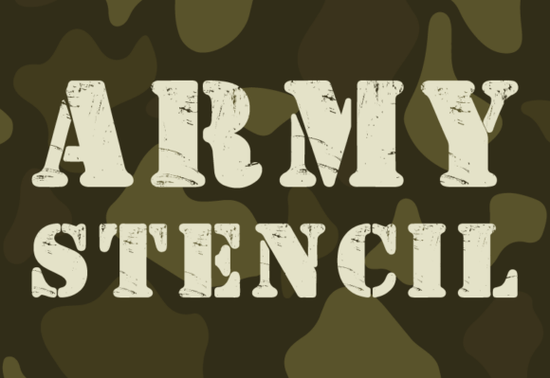
Designers, crafters, and small business owners looking for a unique visual identity might find the Army Stencil Font to be an excellent addition to their toolkit. This sans-serif typeface brings a bold and unconventional aesthetic that stands out in any project. Whether you're working on a logo, t-shirt design, or print-on-demand product, the Army Stencil Font offers a fresh approach to typography with its military-inspired vibe.
The font’s design is characterized by its grunge, weathered look, and strong, unapologetic lines. It doesn’t shy away from its war-inspired roots but adds a modern twist that makes it versatile for a range of creative applications. The combination of boldness and a slightly rough texture gives it a distinctive edge that can add depth to any design. If you’re searching for something that feels both powerful and artistic, this font could be a great fit.
For those interested in similar styles, you might also explore Presque Elegante Font, which offers a more refined yet still unique alternative. However, if you're drawn to the raw energy of the Army Stencil Font, you’ll find it particularly useful for projects that require a strong visual statement.
What Makes Army Stencil Font Stand Out?
The Army Stencil Font isn’t just another generic font it’s designed with intention. Its military influence is clear, but it avoids being too literal or cliché. Instead, it balances that theme with a sense of modernity and creativity. This makes it suitable for a wide range of uses, from branding to editorial design.
One of the key features of this font is its versatility. It works well in both digital and print formats, making it a reliable choice for designers who need a consistent look across different mediums. Its bold nature ensures it remains legible even at smaller sizes, which is essential for anything from packaging to signage.
If you're looking for a font that can add a bit of edge without being overwhelming, Army Stencil Font is worth considering. It’s ideal for projects that aim to make a statement while maintaining readability and professionalism.
Who Can Benefit from Using This Font?
Small businesses, especially those in the fashion, gaming, or outdoor industries, may find the Army Stencil Font particularly useful. Its rugged aesthetic can help convey a sense of strength and resilience, which aligns well with these markets. Print-on-demand sellers can also benefit from using this font to create eye-catching designs that stand out on platforms like Etsy or Redbubble.
Crafters and hobbyists who enjoy working with handmade items or custom prints may appreciate the font’s ability to add a unique touch to their creations. It can be used for everything from T-shirt designs to custom signs, offering a professional look without the need for advanced design skills.
For designers looking to expand their font library, the Army Stencil Font provides a fresh option that can enhance their creative process. It’s especially useful when working on projects that require a bold, no-nonsense style.
How to Use Army Stencil Font Effectively
To get the most out of the Army Stencil Font, consider pairing it with simpler, more traditional fonts for balance. This contrast can help highlight the uniqueness of the stencil style while keeping the overall design cohesive. For example, using it for headings or titles and a standard sans-serif for body text can create a clean and professional look.
When working with this font, keep in mind that its bold and textured appearance may not be suitable for all types of content. It works best in contexts where a strong visual impact is desired, such as logos, banners, or promotional materials. Avoid using it for long paragraphs, as it can become difficult to read.
Testing the font in different sizes and backgrounds is also a good idea. This will help you understand how it performs in various situations and ensure it meets your design needs.
- Consider pairing with simpler fonts for balance
- Avoid using in long text blocks
Whether you're a designer, a small business owner, or a creative hobbyist, the Army Stencil Font offers a powerful way to express your vision. Its bold, stylized look can elevate your work and make it more memorable. Take some time to experiment with it and see how it can enhance your designs.